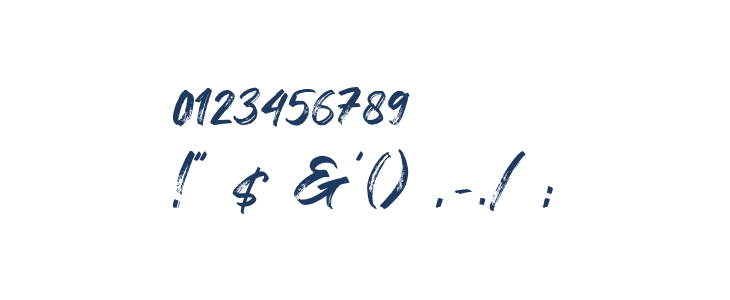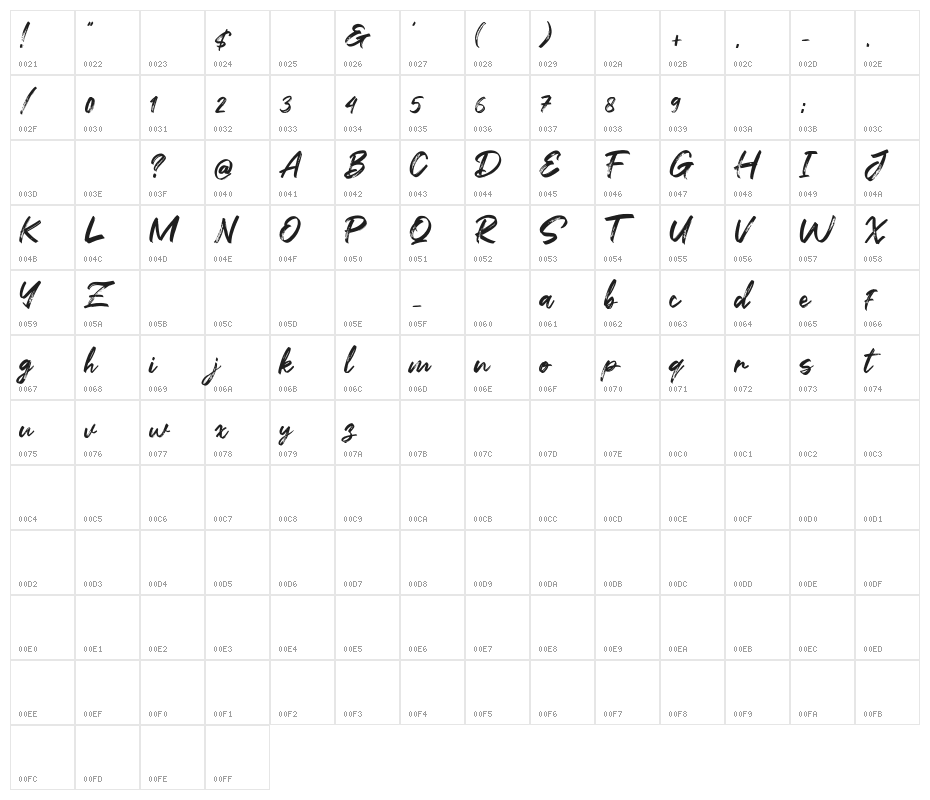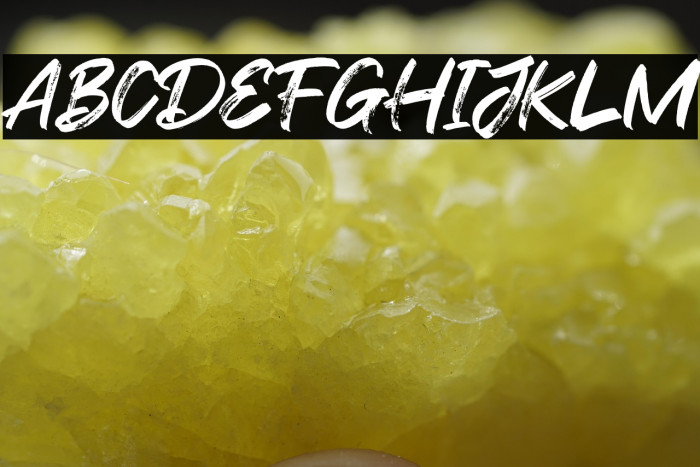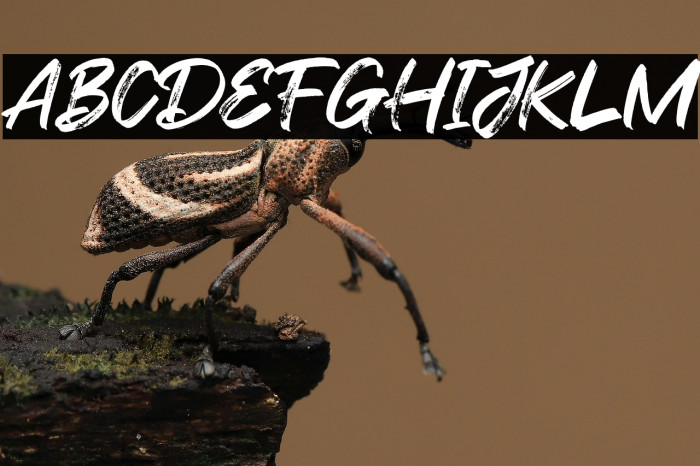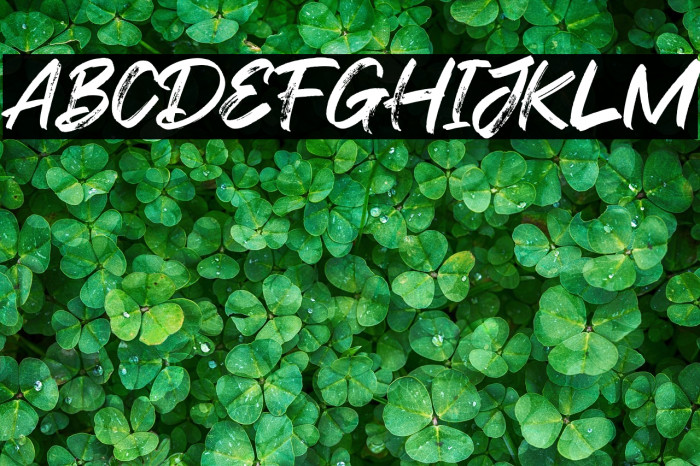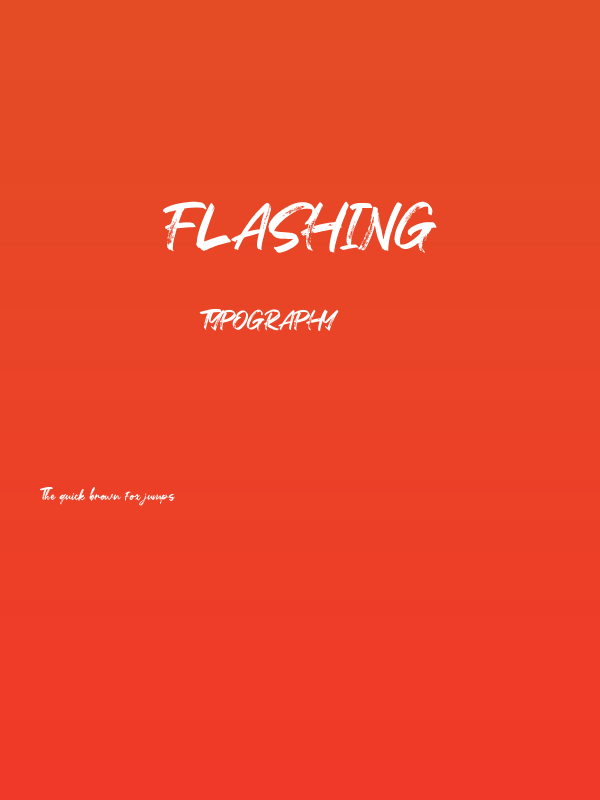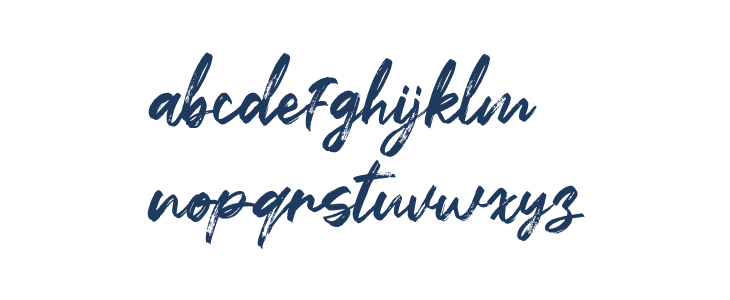
Flashing Font
Flashing Description
This font features a bold and expressive brush script style, characterized by its dynamic and energetic strokes. The letters have a hand-painted appearance, with varying thicknesses that create a sense of movement and spontaneity. The uppercase letters are particularly striking, with their sweeping curves and sharp angles, while the lowercase letters maintain a fluid and cohesive look. The numerals and special characters are equally bold, ensuring consistency across all elements. This font's textured appearance adds depth and personality, making it ideal for creative and artistic projects.
| Use Case | Logos, Headlines, Posters |
| Proposed Projects | Ideal for branding, posters, invitations, and artistic designs. |